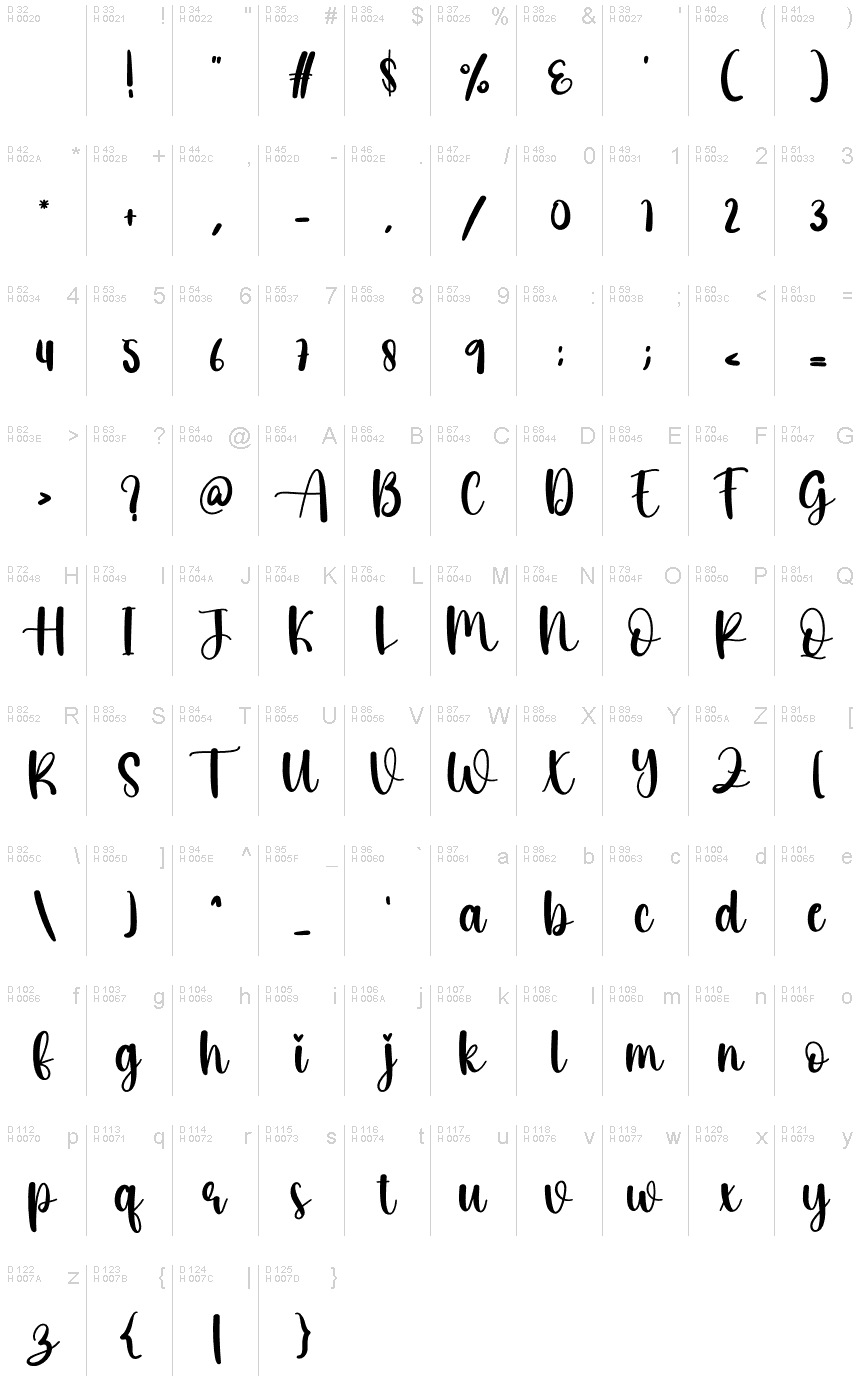
Hello Handmade
Hello Handmade, the perfect font for adding a personal touch to your projects! Designed by scratchones, this handwritten typeface will give your work a unique and authentic feel. The subtle imperfections in each character create a warm and inviting vibe, making it suitable for everything from invitations to social media graphics. Whether you're designing a wedding invitation or creating an Instagram post, Hello Handmade's semi-bold font and slightly condensed width make it versatile enough for any project. So say hello to Hello Handmade and add some handmade charm to your designs!
special creative products for you, our products will give you an extraordinary experience.
the latest style letters are perfect for wall displays, wedding invitations, social media post logos, advertisements, product packaging, product designs, labels, photography, watermarks, invitations, stationery, and any project that requires taste handwriting.
special creative products for you, our products will give you an extraordinary experience.
the latest style letters are perfect for wall displays, wedding invitations, social media post logos, advertisements, product packaging, product designs, labels, photography, watermarks, invitations, stationery, and any project that requires taste handwriting.